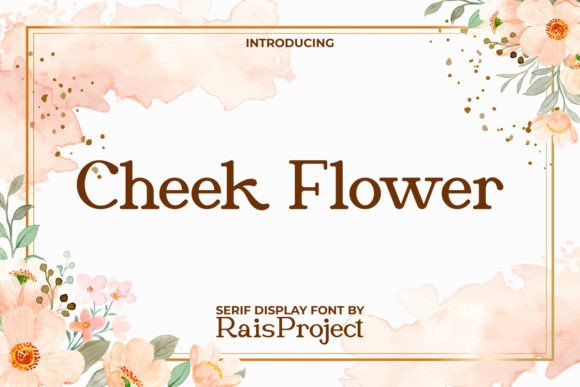
Introducing Cheek Flower Font: The Ultimate Romantic Serif Display Font
Are you looking for a font that exudes love, elegance, and sophistication? Look no further than the Cheek Flower Font. This stunning romantic serif display font is designed to make you feel the love, and it’s perfect for a wide range of design projects. In this article, we’ll take a closer look at the Cheek Flower Font, its features, and how you can use it to elevate your designs.
What is Cheek Flower Font?
Cheek Flower Font is a beautifully crafted romantic serif display font that is sure to capture the hearts of designers and lovers alike. Its elegant and refined design makes it perfect for creating stunning visual content that conveys love, passion, and romance. The font features intricate details, delicate lines, and a touch of sophistication, making it a must-have for any designer looking to add a touch of elegance to their work.
Key Features of Cheek Flower Font
So, what makes Cheek Flower Font so special? Here are some of its key features:
- Romantic and Elegant Design: Cheek Flower Font boasts a romantic and elegant design that is sure to make your designs stand out.
- Serif Display Font: The font features a classic serif design, perfect for creating display text that grabs attention.
- Intricate Details: The font features intricate details and delicate lines that add a touch of sophistication to your designs.
- Versatile: Cheek Flower Font is versatile and can be used for a wide range of design projects, from branding and packaging to invitations and signage.
Use Cases for Cheek Flower Font
So, how can you use Cheek Flower Font in your designs? The possibilities are endless! Here are some use cases to get you started:
- Brand Logo: Create a stunning brand logo that exudes elegance and sophistication.
- Business Card: Design a beautiful business card that makes a lasting impression.
- Cover Design: Create a captivating cover design for your book, magazine, or catalog.
- Custom Design: Use Cheek Flower Font to create custom designs for your clients or personal projects.
- Invitation: Design beautiful invitations for weddings, parties, or other special events.
- Label and Packaging: Use Cheek Flower Font to create stunning labels and packaging for your products.
- Magazine and Menu: Create a beautiful magazine or menu that showcases your brand’s personality.
- Poster and Signage: Design eye-catching posters and signage that grab attention.
- Web Page: Use Cheek Flower Font to create a stunning web page that engages your visitors.
Why Choose Cheek Flower Font?
So, why should you choose Cheek Flower Font for your designs? Here are some compelling reasons:
- Unique and Exclusive: Cheek Flower Font is a unique and exclusive font that will make your designs stand out from the crowd.
- Elegant and Sophisticated: The font features an elegant and sophisticated design that exudes love, passion, and romance.
- High-Quality: Cheek Flower Font is a high-quality font that is designed to deliver exceptional results.
Tips and Tricks for Using Cheek Flower Font
Here are some tips and tricks to help you get the most out of Cheek Flower Font:
- Pair it with Other Fonts: Pair Cheek Flower Font with other fonts to create a unique and visually appealing design.
- Experiment with Colors: Experiment with different colors to find the perfect combination that matches your brand’s personality.
- Use it for Headings: Use Cheek Flower Font for headings and titles to create a stunning visual impact.
- Add Decorative Elements: Add decorative elements, such as borders and patterns, to enhance your design.
In conclusion, Cheek Flower Font is a stunning romantic serif display font that is perfect for designers looking to add a touch of elegance and sophistication to their work. With its intricate details, delicate lines, and versatile design, it’s perfect for a wide range of design projects. Whether you’re creating a brand logo, business card, or invitation, Cheek Flower Font is sure to make your designs stand out. So why wait? Download Cheek Flower Font today and start creating stunning designs that exude love and romance!